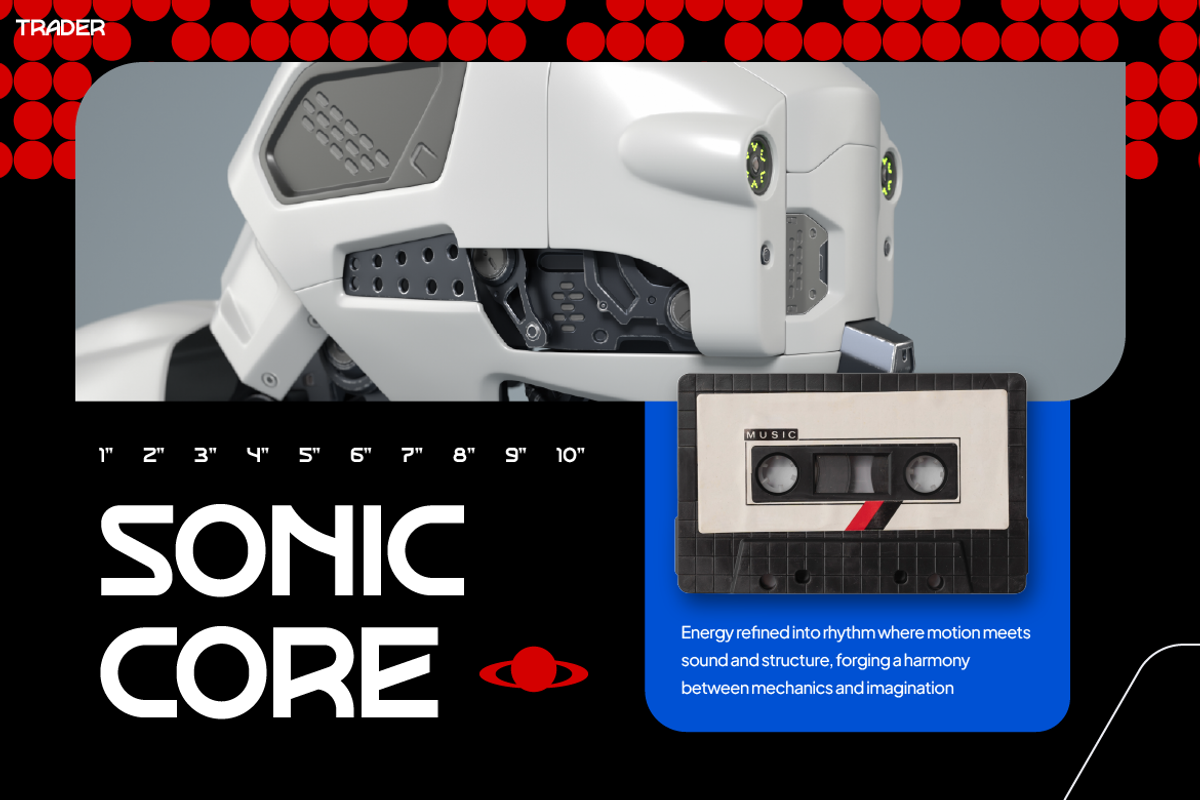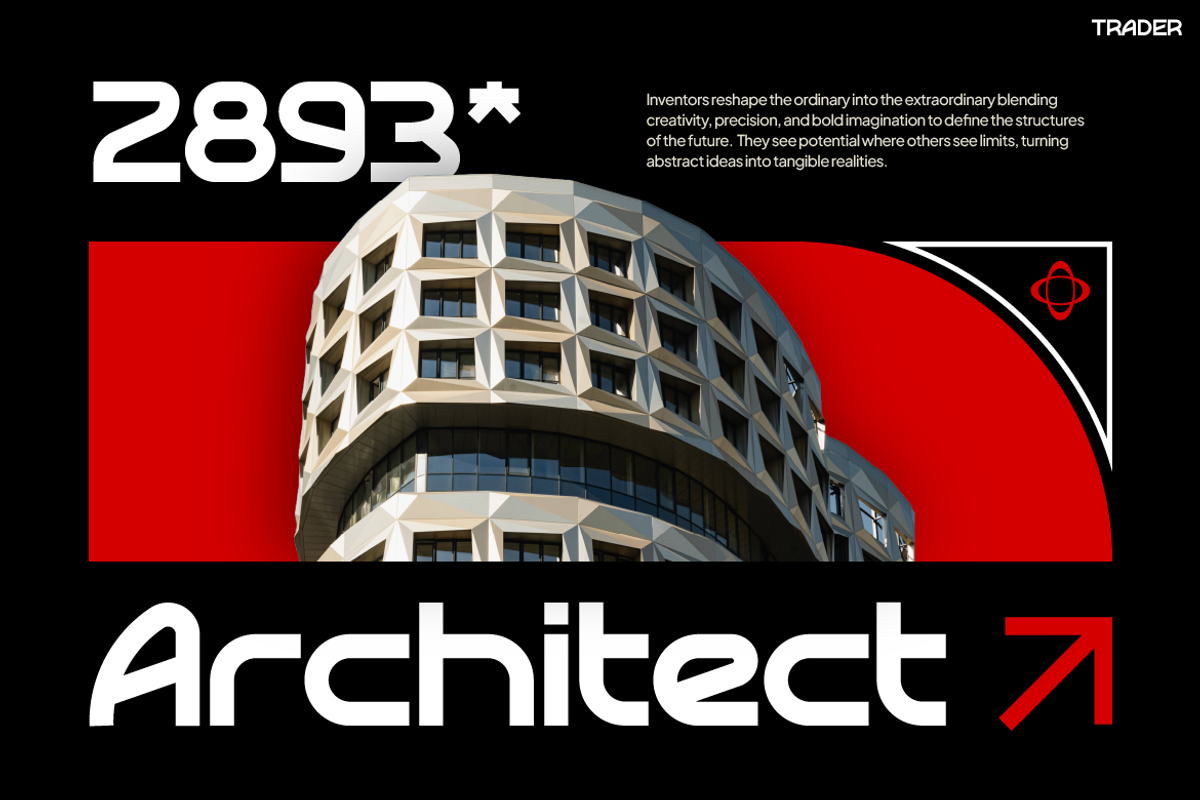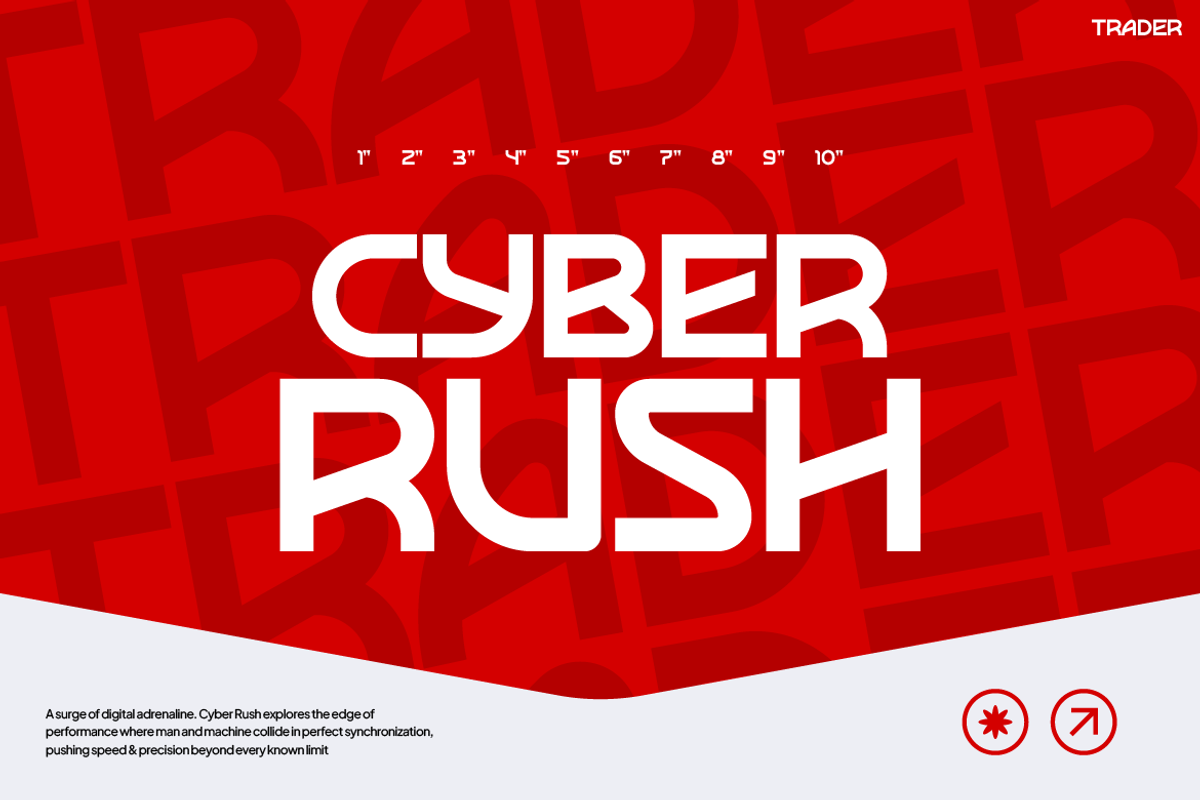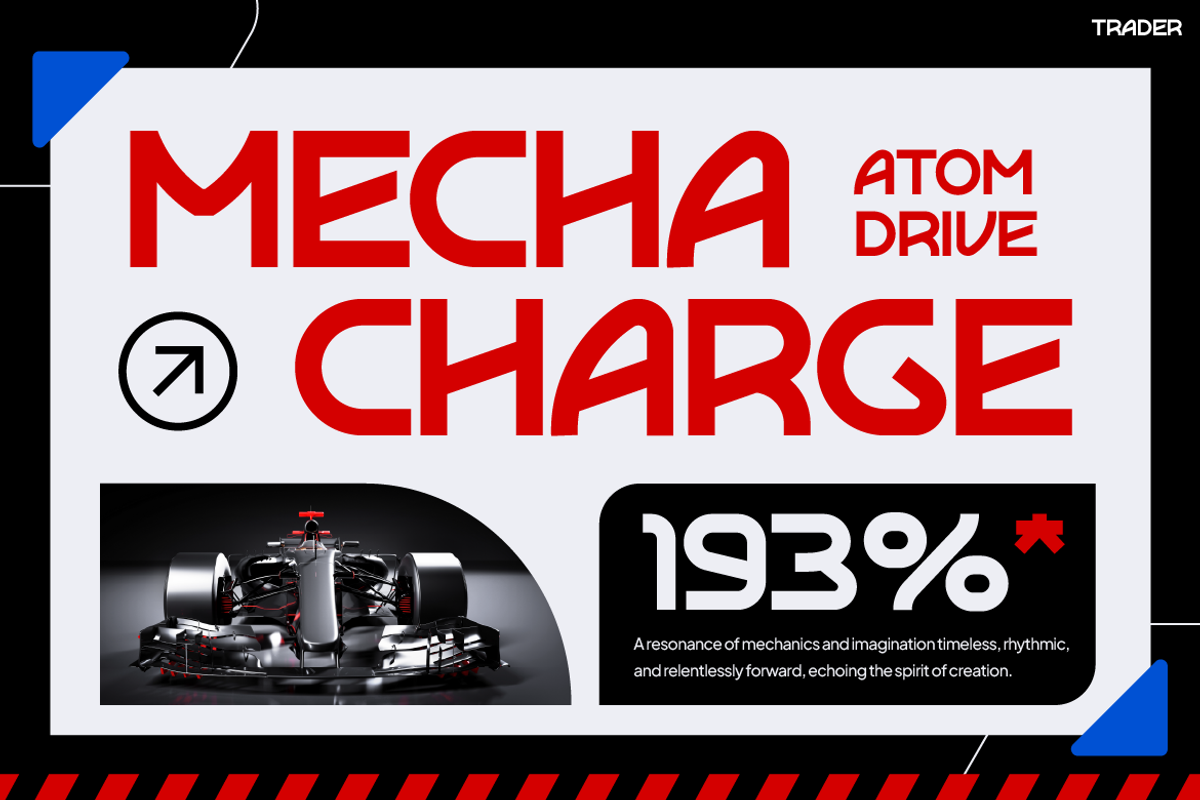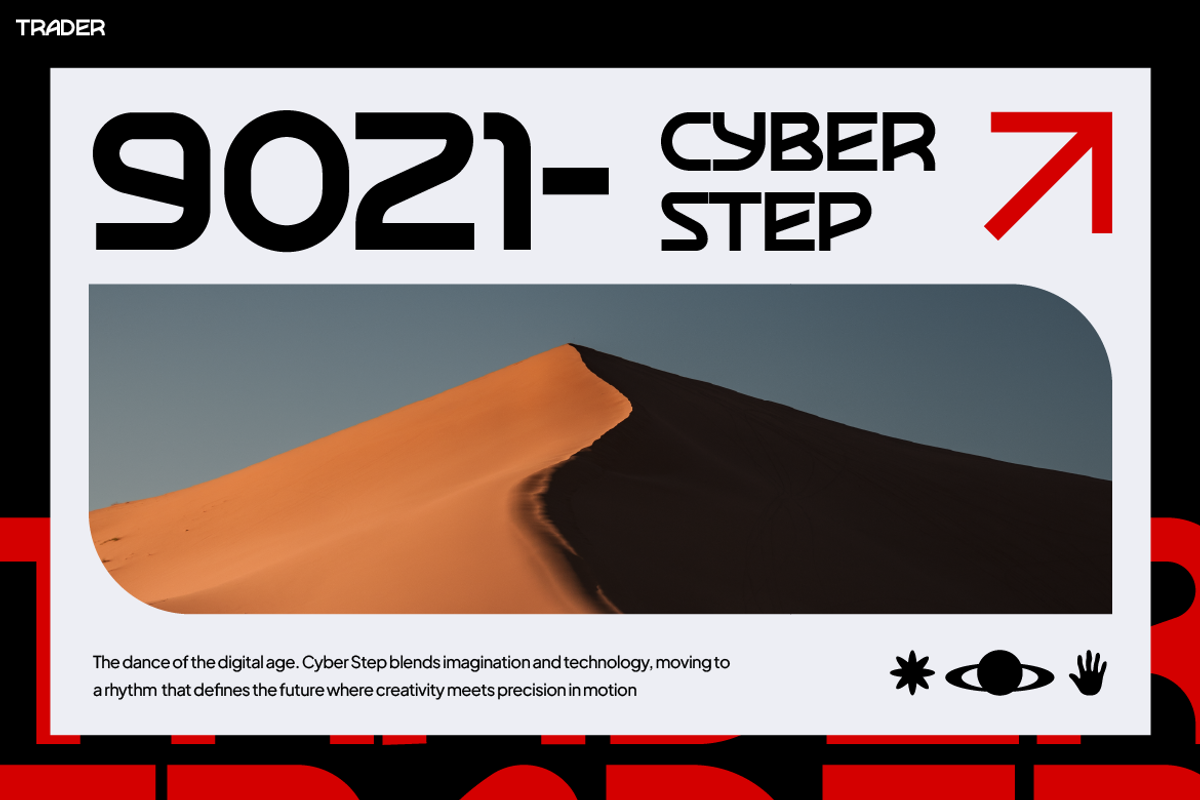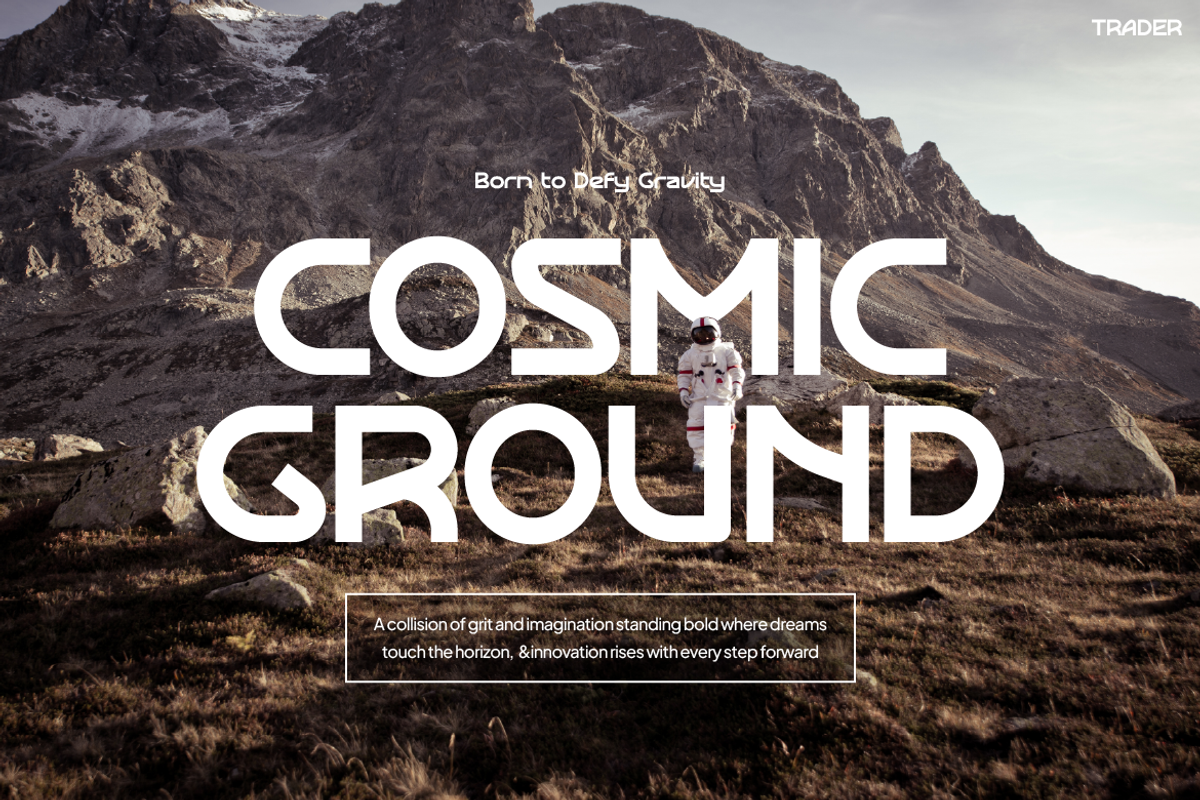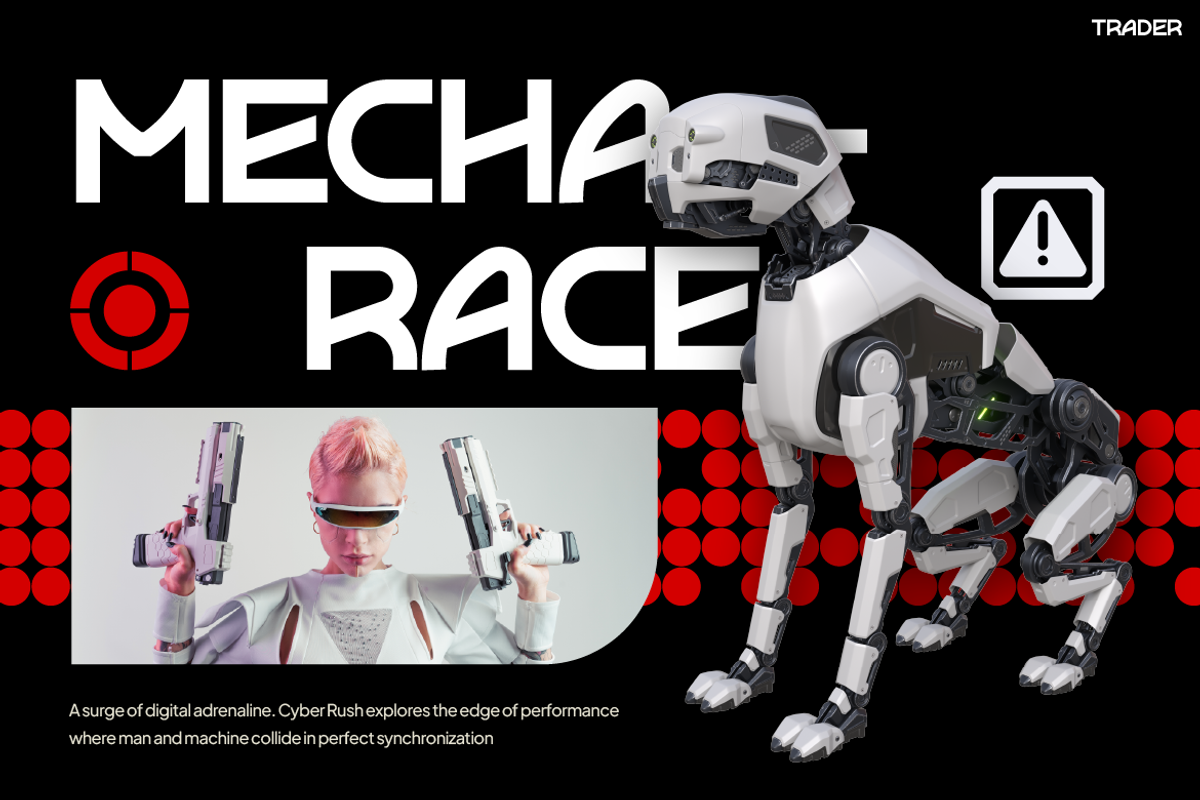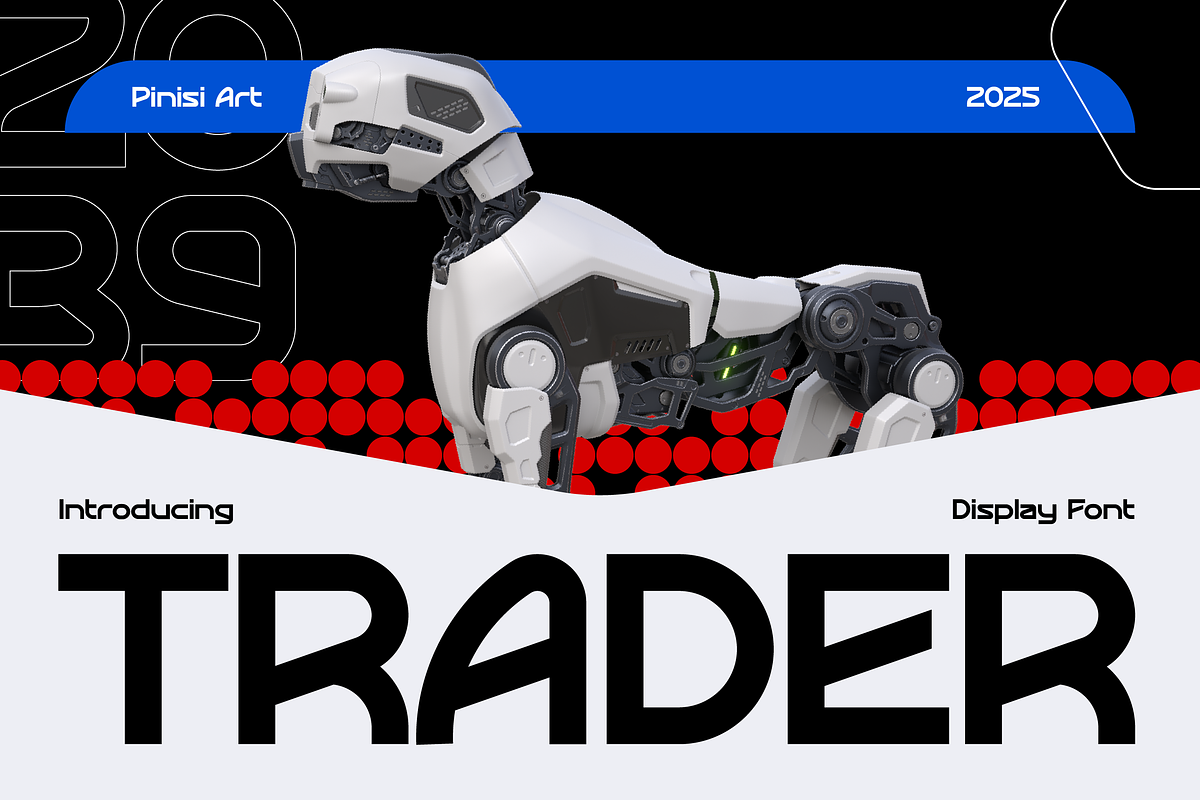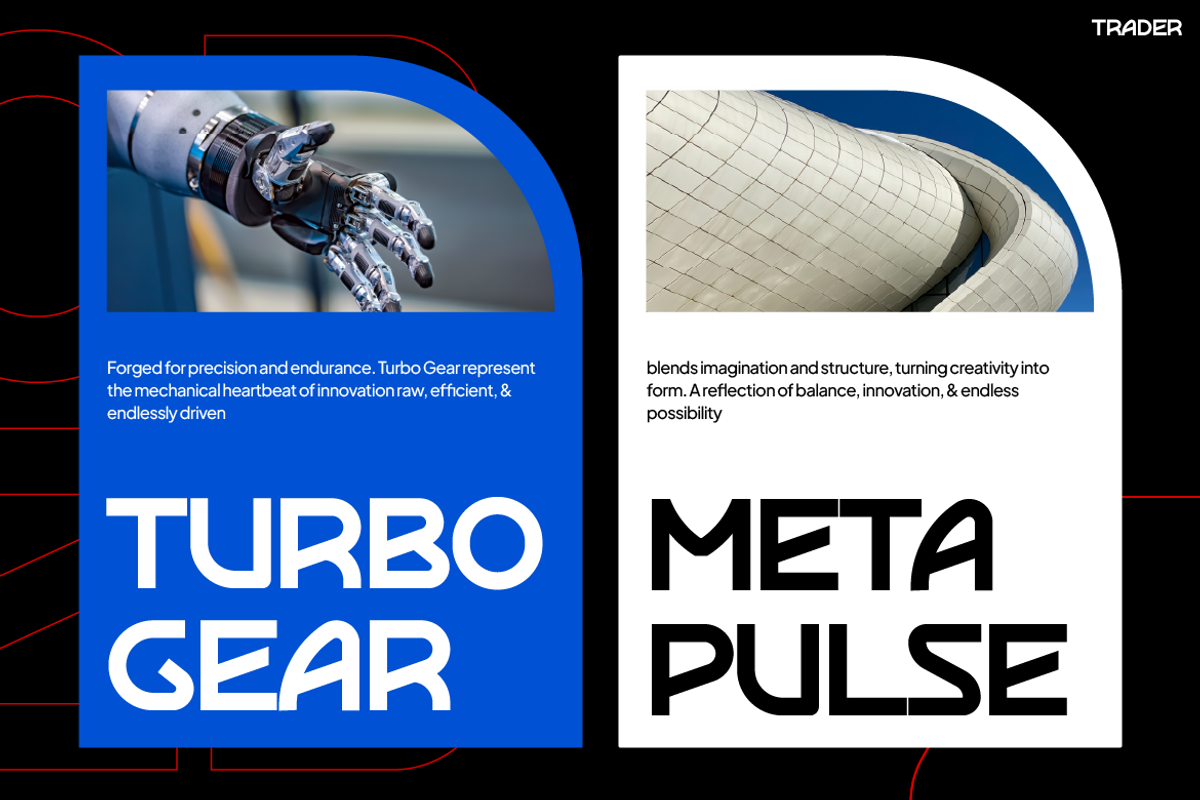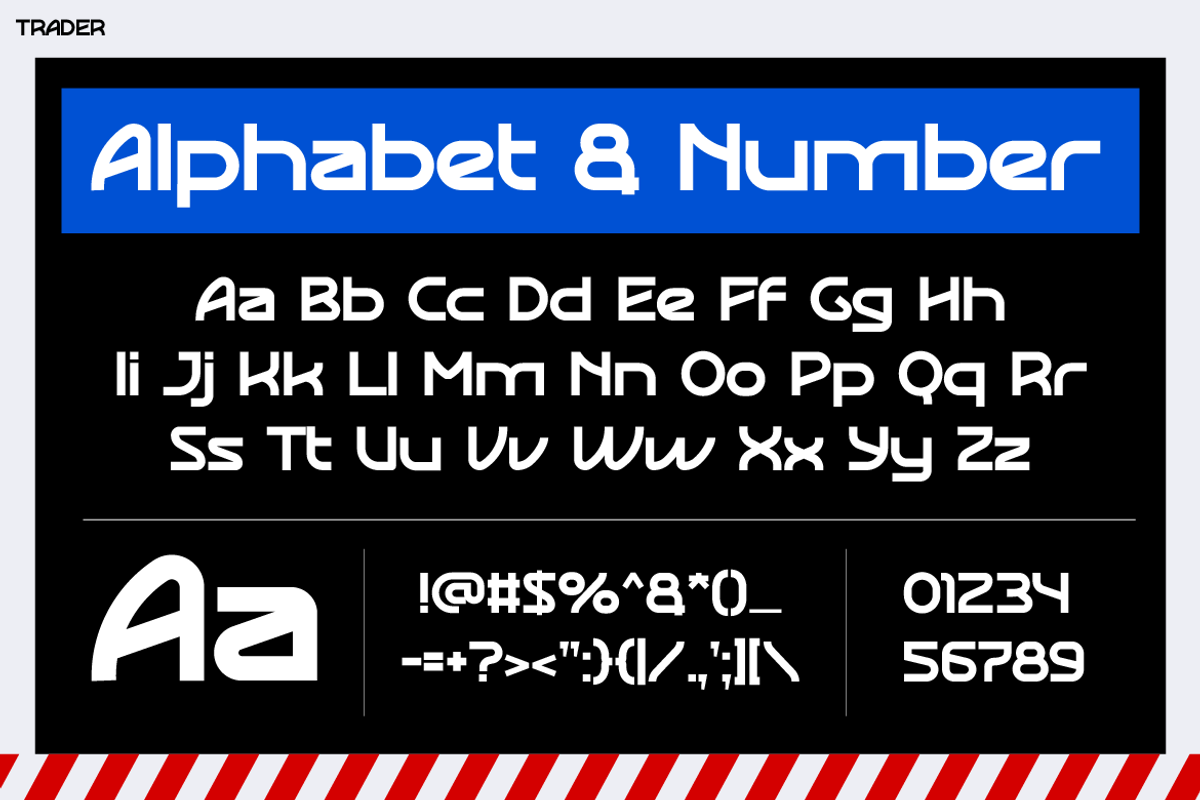
TRADER
Futuristic Font TRADER – Bold Vision, Modern Edge, Infinite Motion.
Futuristic Font TRADER is a sleek, forward-thinking typeface designed to bring a next-generation feel to any project. It blends geometric precision with smooth curves, creating an aesthetic that feels bold yet fluid. Moreover, its dynamic rhythm and futuristic energy make it instantly eye-catching. Each character is carefully built to show motion, balance, and innovation—perfect for creators who value both style and function.
In addition, this font harmonizes modern minimalism with advanced technology. It looks stunning on both screens and print materials. Furthermore, it delivers perfect readability at any scale, making it ideal for futuristic branding, digital displays, or modern interfaces. Its sci-fi influence captures the essence of progress, speed, and intelligent design. Therefore, TRADER is more than a typeface—it’s a visual identity that embodies the spirit of the future.